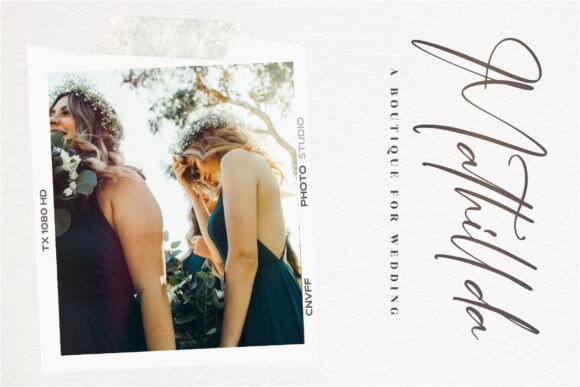
Jasmartha Rosebery Font
Jasmartha Rosebery is a classy looking and chic handwritten font. Whether you’re using it for crafts, digital design, presentations, or making greeting cards, this font will make a great impression. Jasmartha Rosebery is PUA encoded which means you can access all of the glyphs and swashes with ease!